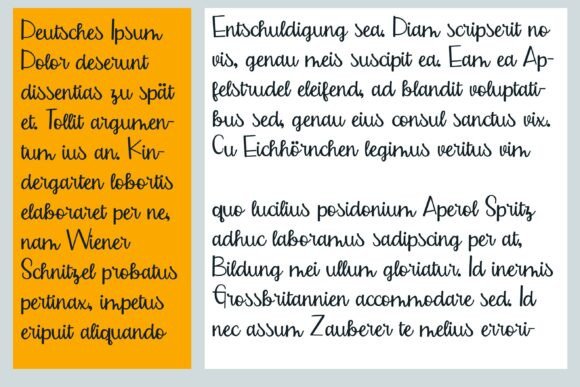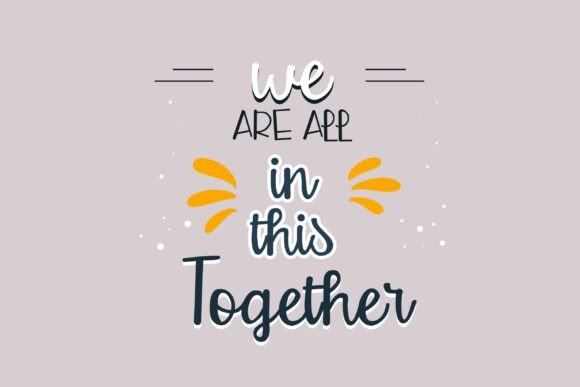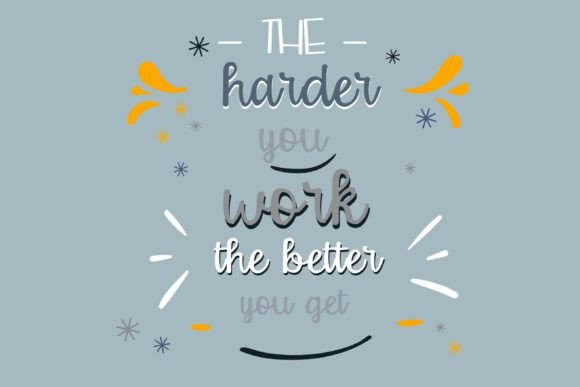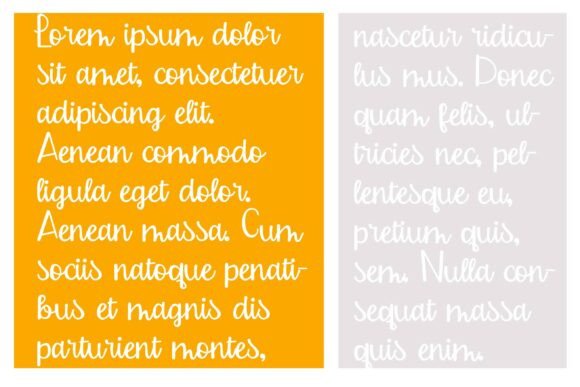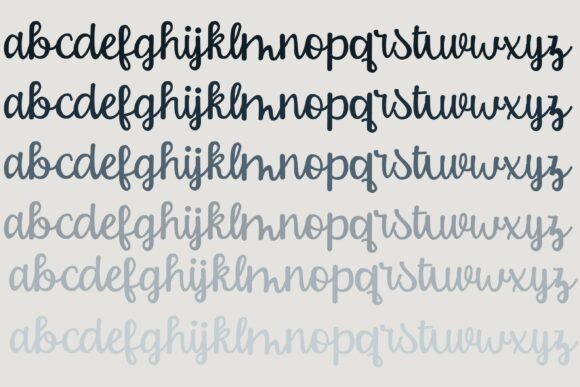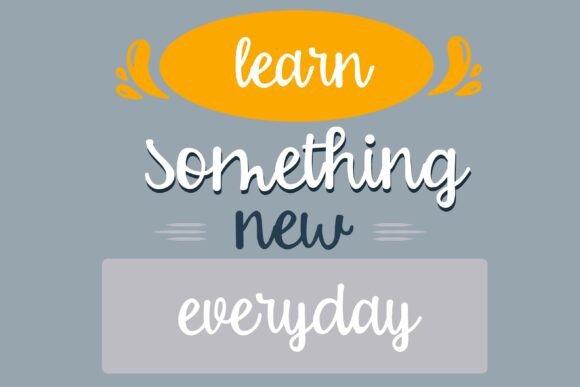
Introducing Gibson Font: A Hand-Crafted Casual Script with a Print-Like Uppercase
Are you looking for a font that adds a personal touch to your designs? Look no further than the Gibson Font, a beautiful hand-crafted casual script with a print-like uppercase. This versatile font is perfect for designers and crafters who want to add a unique and elegant touch to their work.
A hand-crafted font is a font that is designed to look like it was written by hand. It is often used for invitations, greeting cards, and other items where a personal touch is desired. Handwritten fonts can be either formal or informal, and they can be used for a variety of purposes. They are perfect for adding a touch of elegance and sophistication to your designs.
Features of Gibson Font
The Gibson Font is a casual script with a print-like uppercase. It is a hand-crafted font that is designed to look like it was written by hand. The font comes in two versions: light and bold. This allows you to choose the perfect weight for your design. The print-like uppercase letters give the font a unique and elegant touch, making it perfect for a variety of design projects.
Uses of Gibson Font
The Gibson Font is a versatile font that can be used for a variety of purposes. Here are some ideas for using this beautiful font:
- Invitations: Use the Gibson Font to create beautiful and elegant invitations for weddings, parties, and other special occasions.
- Greeting Cards: Add a personal touch to your greeting cards with the Gibson Font. It’s perfect for birthdays, holidays, and other special occasions.
- Signage: Use the Gibson Font to create eye-catching signage for businesses, events, and other purposes.
- Packaging: Add a touch of elegance to your packaging with the Gibson Font. It’s perfect for product labels, packaging inserts, and other materials.
- Digital Designs: Use the Gibson Font in your digital designs, such as social media graphics, blog posts, and other online content.
Benefits of Using Gibson Font
There are many benefits to using the Gibson Font in your designs. Here are a few:
- Unique and Elegant: The Gibson Font is a unique and elegant font that will add a touch of sophistication to your designs.
- Versatile: The font comes in two versions: light and bold. This allows you to choose the perfect weight for your design.
- Easy to Read: The Gibson Font is easy to read, making it perfect for body text and other applications where readability is important.
- Hand-Crafted: The font is designed to look like it was written by hand, giving it a personal and unique touch.
Tips for Using Gibson Font
Here are a few tips for using the Gibson Font in your designs:
- Use it Sparingly: Use the Gibson Font sparingly to add a touch of elegance to your designs. Overusing the font can make your designs look cluttered and busy.
- Pair it with Other Fonts: Pair the Gibson Font with other fonts to create a unique and interesting design. Try pairing it with a sans-serif font for a bold and modern look.
- Experiment with Colors: Experiment with different colors to find the perfect combination for your design. The Gibson Font looks great in a variety of colors, from bold and bright to soft and pastel.
The Gibson Font is a beautiful hand-crafted casual script with a print-like uppercase. It’s perfect for designers and crafters who want to add a unique and elegant touch to their work. With its versatility, ease of use, and hand-crafted look, the Gibson Font is a great addition to any design project. Try it out today and see the difference it can make!